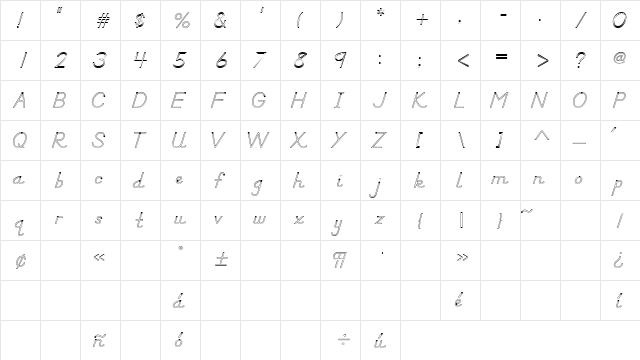
DN Manuscript Outlines Regular Font Preview
DN Manuscript Outlines Regular
Design Context for DN Manuscript Outlines Typeface
DN Manuscript Outlines flows with the natural rhythm of handwritten lettering, making it ideal for designs that call for warmth and personal expression.